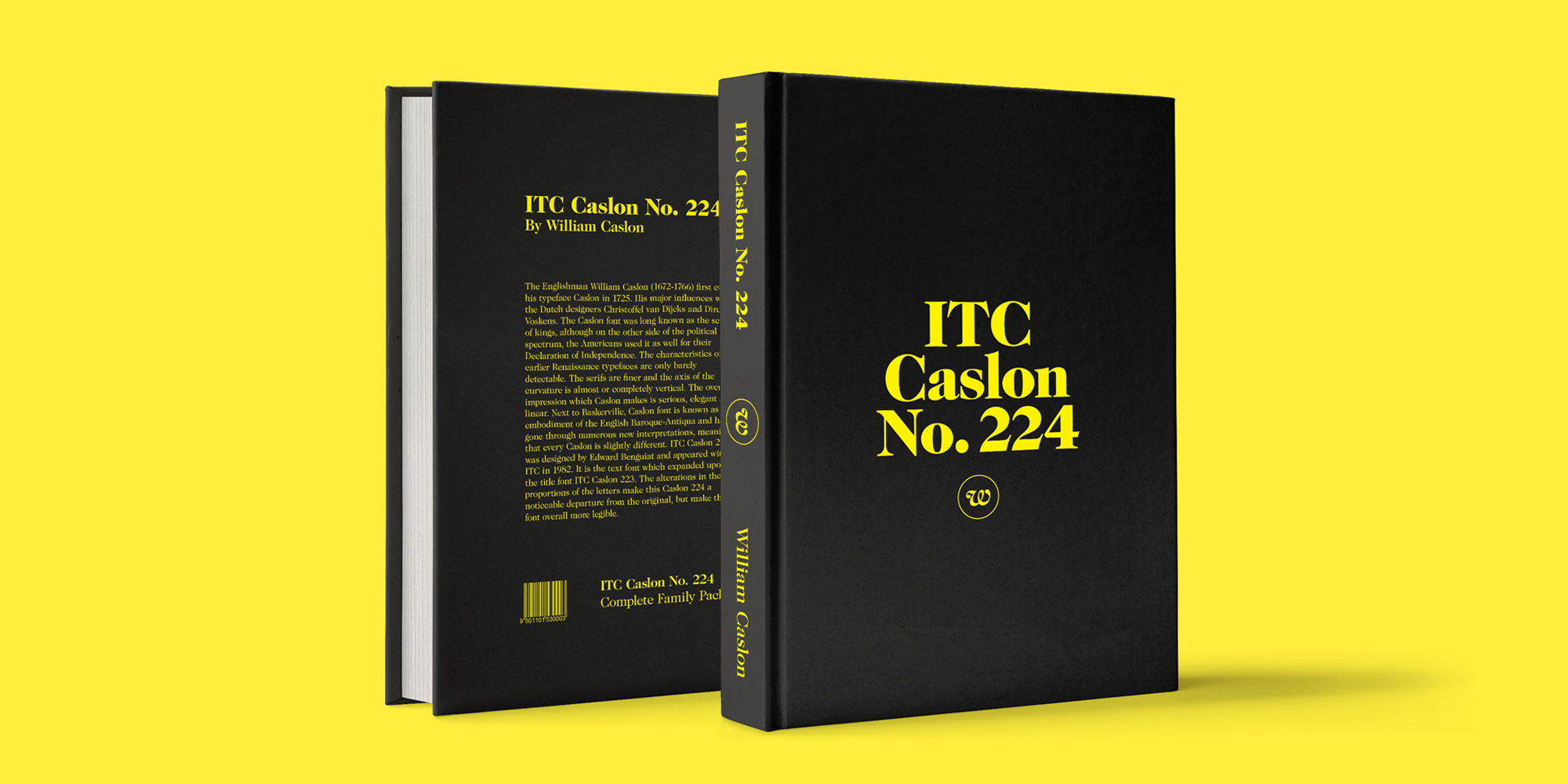
ITC Caslon No. 224 Font is perfect for historical document reproductions, traditional book publishing, classical literature editions, heritage brand communications, prestigious law firm materials, museum archival displays, colonial heritage designs, and distinguished academic publications.
What makes ITC Caslon No. 224 Font exciting is its timeless historical authenticity that masterfully preserves the elegant craftsmanship and scholarly tradition of 18th-century typography while maintaining exceptional readability for contemporary applications. The meticulously crafted letterforms showcase classical proportions with distinctive period character that evokes memories of founding documents, leather-bound volumes, and the scholarly elegance that defined the Age of Enlightenment and early American printing traditions. This remarkable typeface embodies historical gravitas, intellectual tradition, and enduring elegance, making it the perfect choice for institutions and publications that honor historical heritage and want typography that reflects their commitment to preserving cultural legacy and scholarly excellence.
The ITC Caslon No. 224 Font family includes multiple weights with corresponding italic styles, featuring complete character sets with historical symbols, classical ligatures, old-style numerals, and period-appropriate punctuation marks. The comprehensive glyph collection includes traditional ornaments and scholarly elements that enhance the authentic historical aesthetic across all academic and heritage design applications.
Historical institutions and traditional publishers seeking ITC Caslon No. 224 Font Free Download will discover exceptional opportunities for creating authoritative, historically resonant communications. This outstanding typeface transforms standard academic text into compelling historical narratives that immediately communicate scholarly authority, cultural heritage, and intellectual sophistication. Whether you're designing museum exhibition materials, creating classical literature publications, developing historical society communications, or crafting prestigious institutional branding, this font delivers remarkable results that honor traditional craftsmanship while engaging contemporary audiences with the enduring relevance and beauty of historical typography and cultural preservation.
The classically balanced letter spacing and traditional construction make ITC Caslon No. 224 Font remarkably effective across both intimate scholarly applications and grand institutional displays. Its historical character ensures seamless integration into heritage projects while maintaining excellent readability for modern academic communication needs. From university press publications to constitutional document reproductions, this font consistently delivers the scholarly gravitas that defines serious historical and academic institutions.